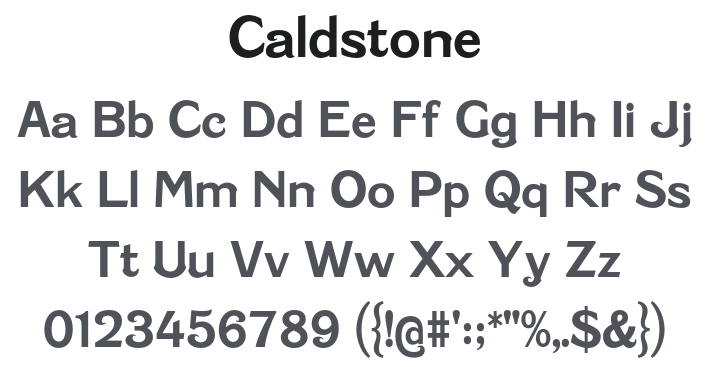
Caldstone Font Family
About Caldstone
Caldstone is a display sans-serif inspired by the expressive lettering of the 1910s and the ornate revivals of the 1960s. Decorative curls and spurs—details more often seen in serif designs—give it a distinctive personality, while clean proportions and careful spacing keep it comfortable in modern layouts.
Rather than reviving a single antique source, Caldstone blends early-20th-century charm with contemporary versatility. Its warm, exuberant character offers an alternative to minimalist sans-serifs, making it well suited to branding, editorial design, packaging, and other display-driven typography.